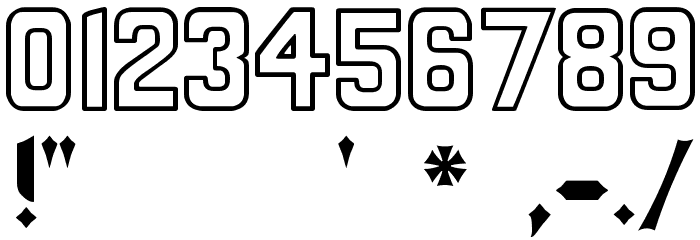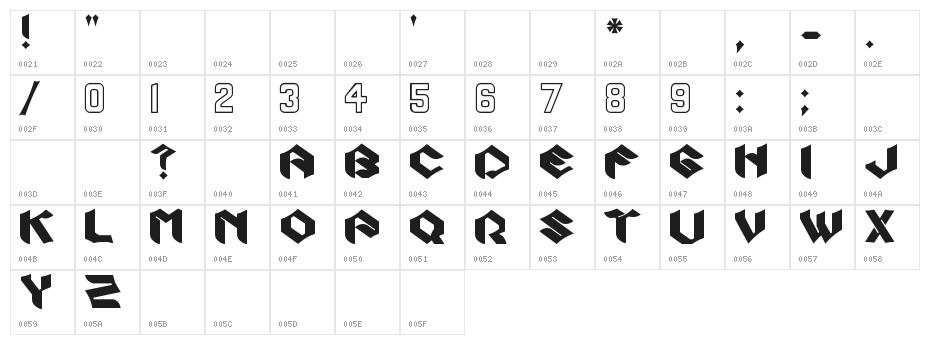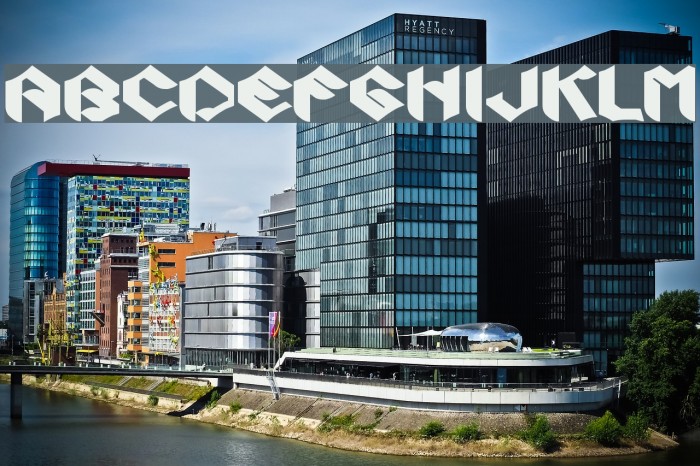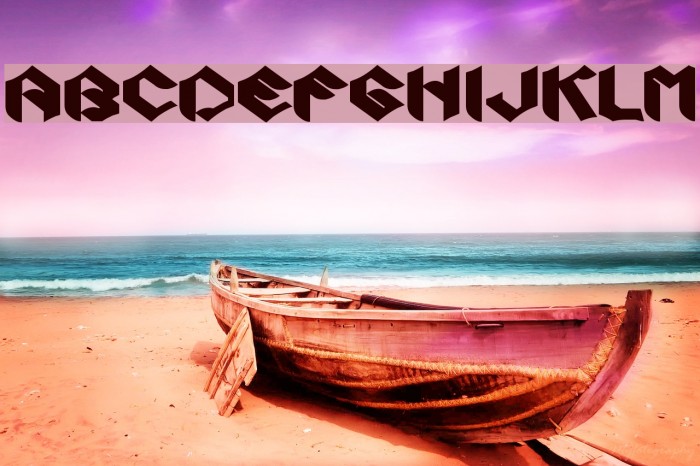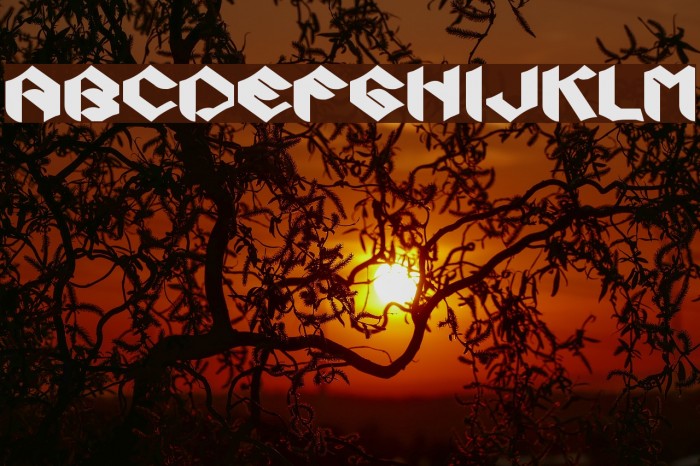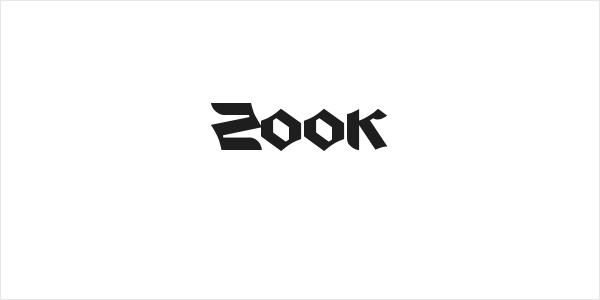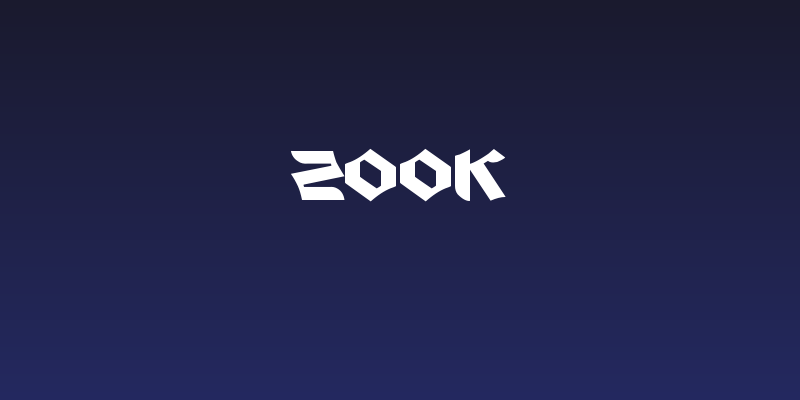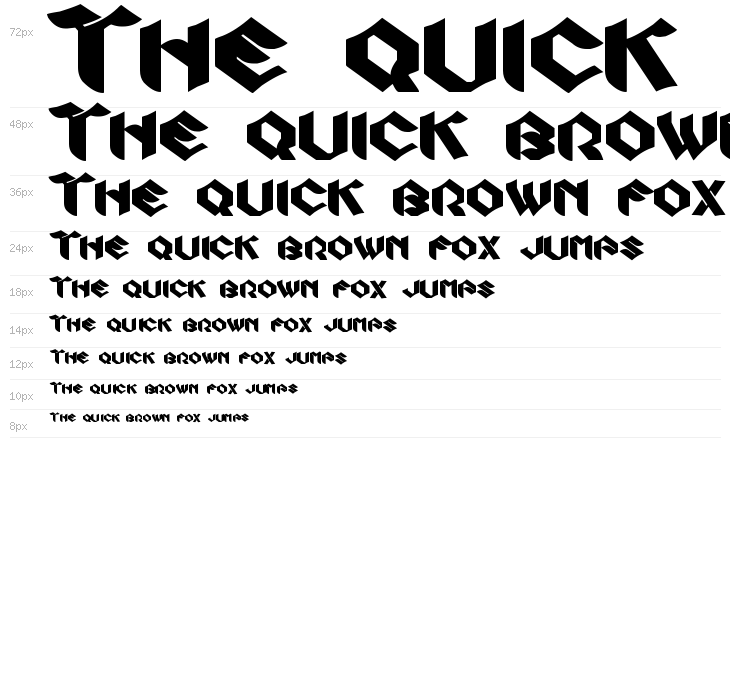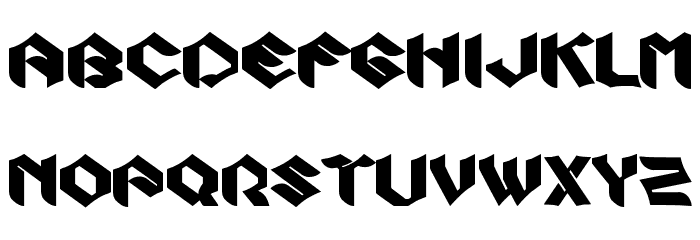
Zook Font
Zook Description
This font features a bold and angular design with a futuristic and edgy appearance. The uppercase letters are characterized by sharp, geometric shapes with a consistent thickness throughout, giving them a strong and impactful presence. The lowercase letters maintain this angular style, providing a cohesive look across the typeface. The numerals are outlined, adding a unique contrast to the solid letters. Special characters are stylized to match the overall aesthetic, making this font suitable for attention-grabbing designs. Its distinct style makes it ideal for projects that require a modern and bold statement.